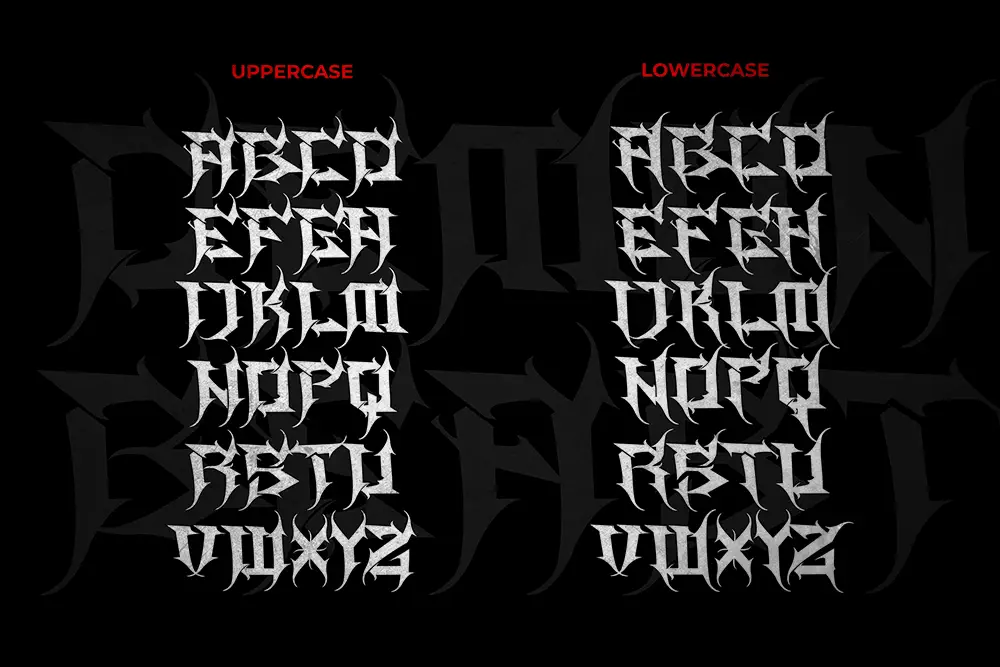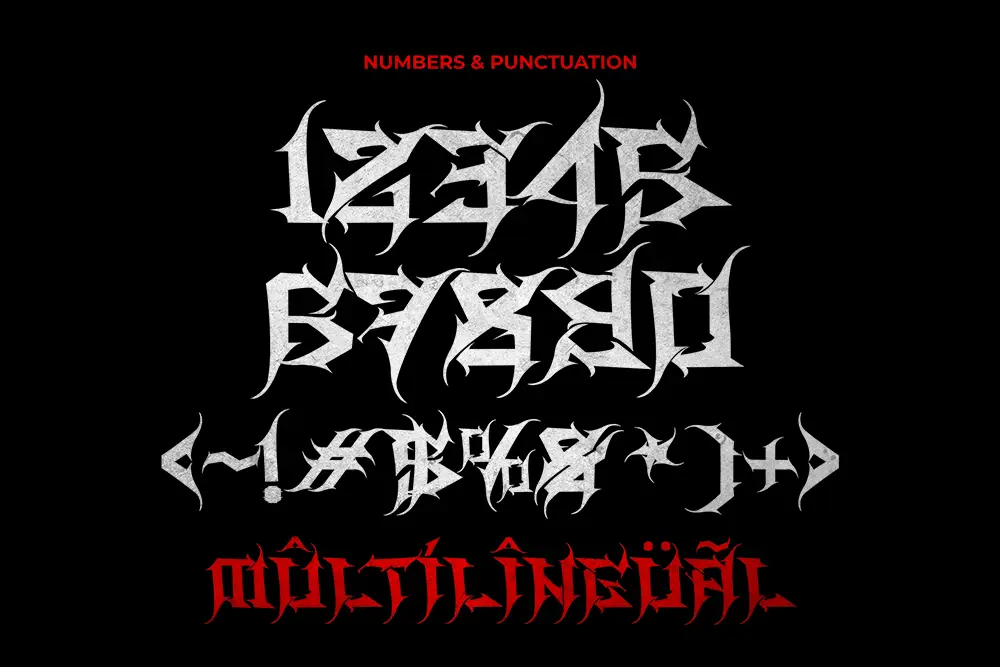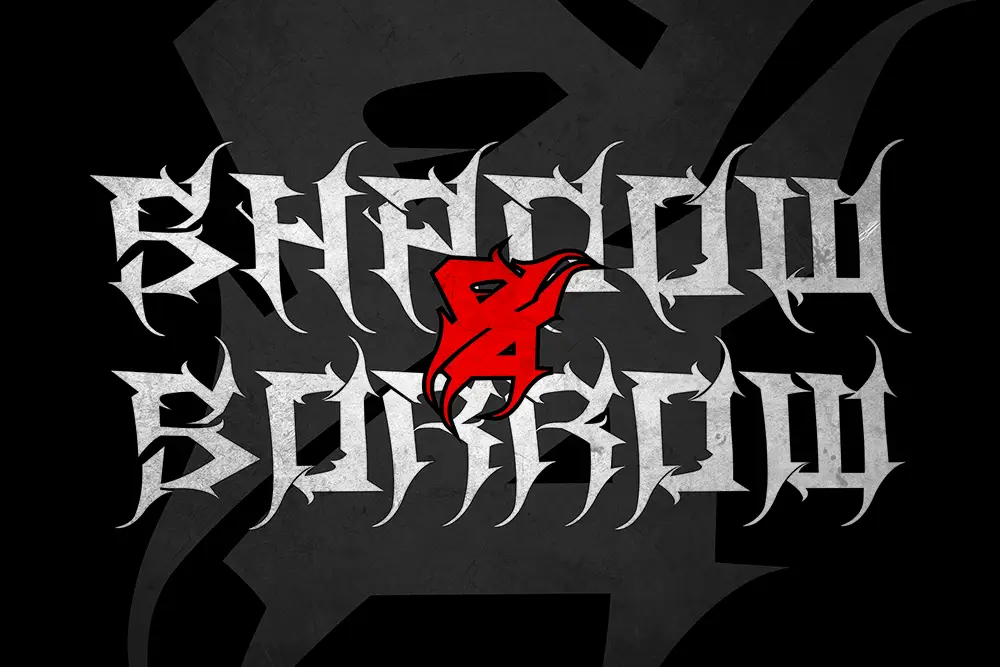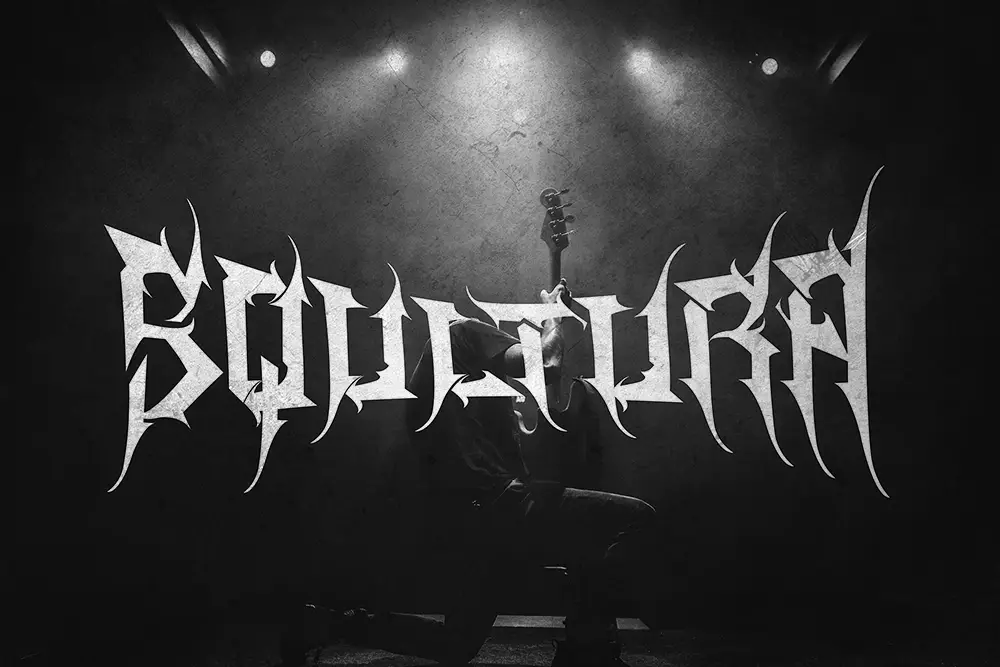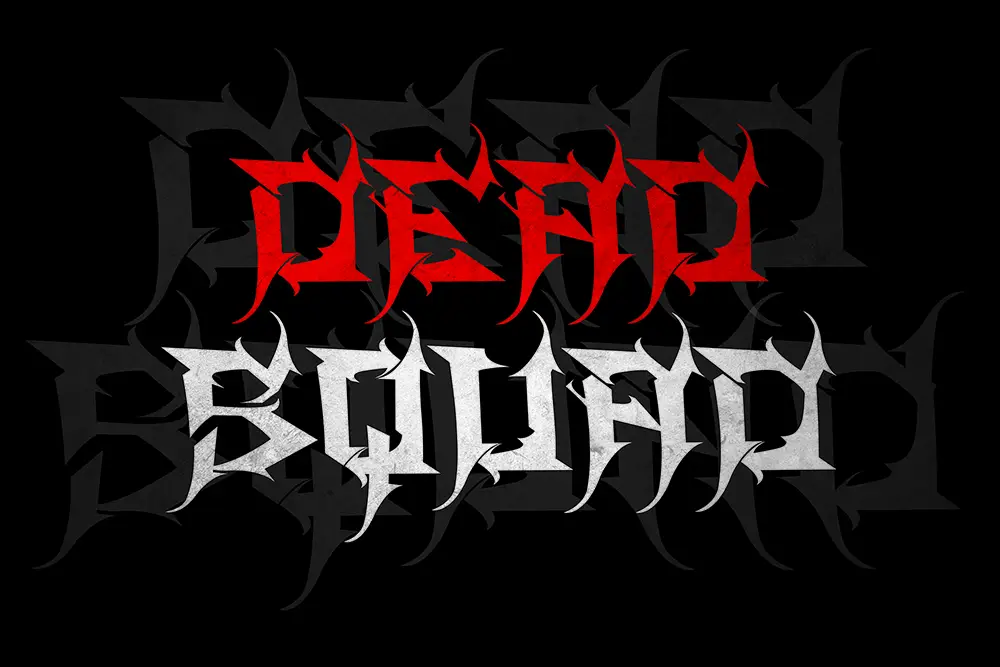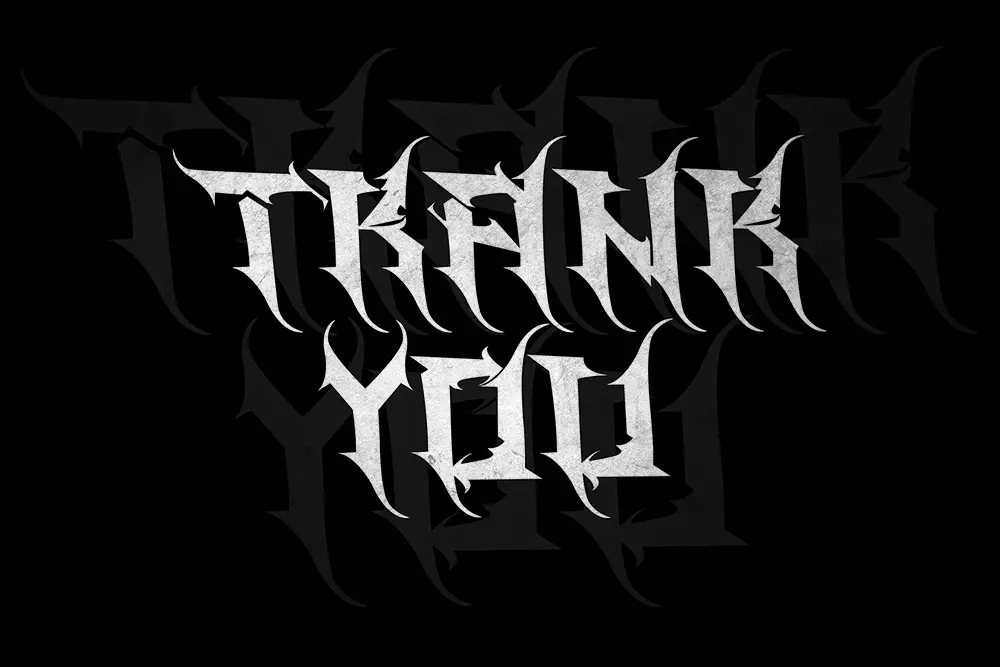
Roger Fury
Roger Fury – Elegant Blackmetal Font for Bold Design
Typography has the power to define an entire visual identity. When it comes to heavy, intense, and artistic aesthetics, nothing works better than a blackmetal font. Roger Fury – Elegant Blackmetal Font is crafted to deliver elegance, aggression, and boldness in perfect balance. With sharp strokes, dramatic forms, and refined details, this elegant blackmetal font is perfect for logos, posters, album covers, and music branding that demands authority.
From metal bands to creative projects, Roger Fury is not just a typeface—it’s a statement of strength and style.
Elegant Blackmetal Font with Modern Gothic Edge
Unlike generic gothic styles, Roger Fury was designed as a truly elegant blackmetal font. Its letterforms combine the raw energy of metal typography with refined modern aesthetics. The result is a typeface that feels both rebellious and professional, making it versatile for music, fashion branding, event posters, and artistic projects.
This blackmetal font isn’t just about darkness—it’s about balance. The elegance in its curves ensures readability while still retaining the aggressive tone needed for bold design.
Key Features of Roger Fury – Elegant Blackmetal Font
Roger Fury provides everything designers need for high-impact typography:
• Uppercase & Lowercase: Complete alphabet for diverse usage.
• Multilingual Support: Extended Latin characters for international projects.
• Elegant Blackmetal Style: Sharp and gothic with refined curves.
• High Contrast Strokes: Strong balance between thick and thin lines.
• Perfect for Display: Ideal for logos, posters, covers, and branding.
Why Designers Love Roger Fury
Designers choose Roger Fury because it blends strength with elegance. Many blackmetal fonts look dramatic but lack usability—Roger Fury solves that with its crafted balance.
Here’s why it’s loved:
• Music Branding Power: Perfect for band logos, album covers, and festival posters.
• Gothic Elegance: Aggressive yet stylish letterforms stand out in any medium.
• Multilingual Use: Works globally with extended character support.
• Versatile Pairing: Pairs beautifully with serif fonts like Kastroz Luxury Vintage Serif Font to balance gothic energy with vintage sophistication.
Roger Fury for Logos and Band Identity
Logos for bands and creative brands demand a typeface that captures intensity. Roger Fury’s elegant blackmetal font style provides exactly that. Its sharp strokes and gothic details make it perfect for wordmarks, emblems, and branding that feels powerful and memorable.
If your project needs to stand out in music or creative industries, Roger Fury is the typeface to trust.
Roger Fury for Posters and Covers
Posters and album covers are meant to leave a lasting impression. Roger Fury excels here as a blackmetal font that instantly communicates energy, emotion, and drama. Whether for a live music event, an album launch, or a high-impact advertisement, this font ensures your visuals grab attention.
Its extended strokes and gothic elegance create a striking presence that works perfectly in large-scale designs.
Using Roger Fury in Creative Branding
Beyond music, Roger Fury works as an elegant blackmetal font for high-concept branding projects. From edgy fashion campaigns to artistic exhibitions, its unique personality adds boldness to corporate identities and modern advertising.
Pairing it with Kastroz Luxury Vintage Serif Font allows designers to mix gothic intensity with timeless elegance. This pairing is especially effective for event branding, packaging, and editorial layouts.
• Font Name: Roger Fury – Elegant Blackmetal Font
• Character Set: Uppercase, Lowercase, Numbers, Punctuation
• Category: Elegant Blackmetal Font
• Best Uses: Logos, Posters, Album Covers, Branding, Advertising, Creative Projects
Why Roger Fury is the Elegant Blackmetal Font You Need
Trends in typography demand boldness and uniqueness. Roger Fury delivers both. As an elegant blackmetal font, it stands out with gothic sharpness while remaining usable across professional design contexts.
From global branding to underground music scenes, Roger Fury captures intensity and style. Its powerful strokes make every design feel alive, aggressive, and unforgettable. With included OTF, TTF, and WOFF formats, plus multilingual support, it’s ready for worldwide creative projects.
Roger Fury – Elegant Blackmetal Font is more than just a typeface—it’s an artistic weapon. With gothic elegance, sharp details, and complete versatility, it’s the font that will elevate your logos, posters, and music branding.
If you want your work to resonate with boldness and authority, Roger Fury is the choice. Pair it with Kastroz Luxury Vintage Serif Font for unforgettable contrast, or use it solo to unleash pure gothic energy.